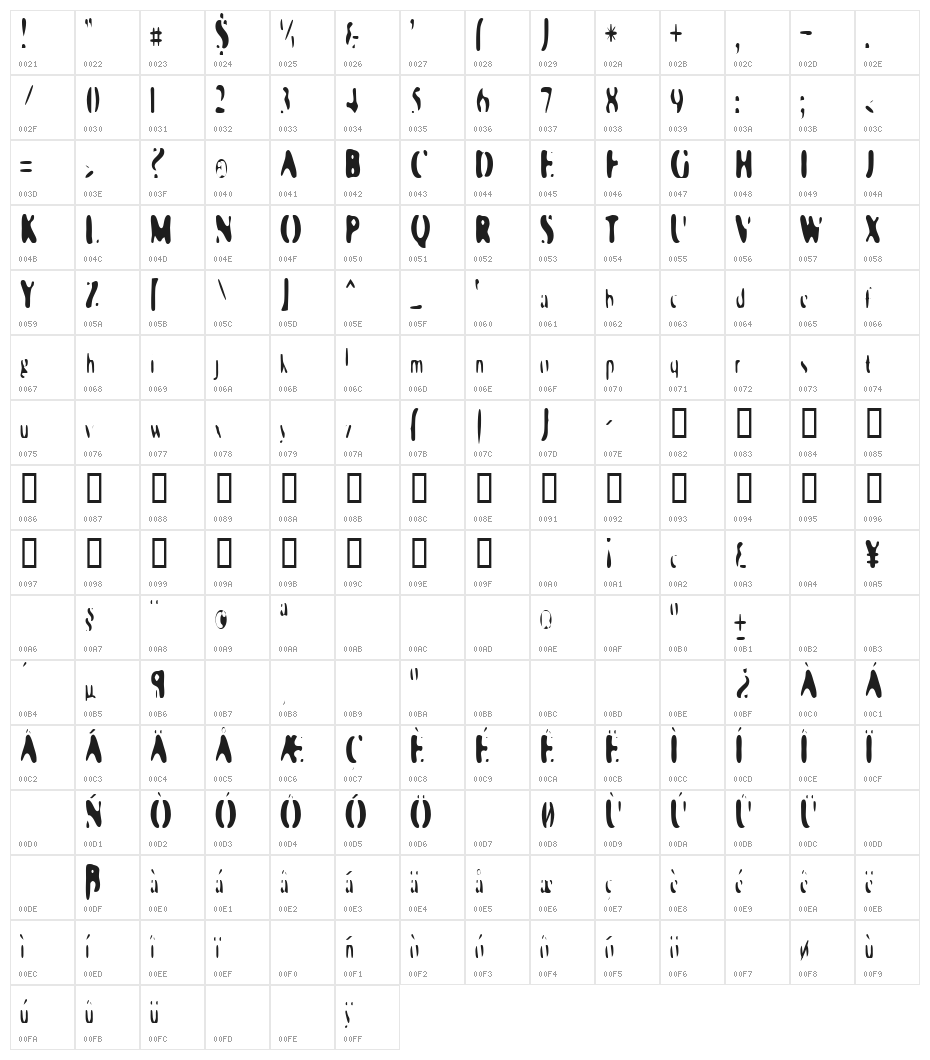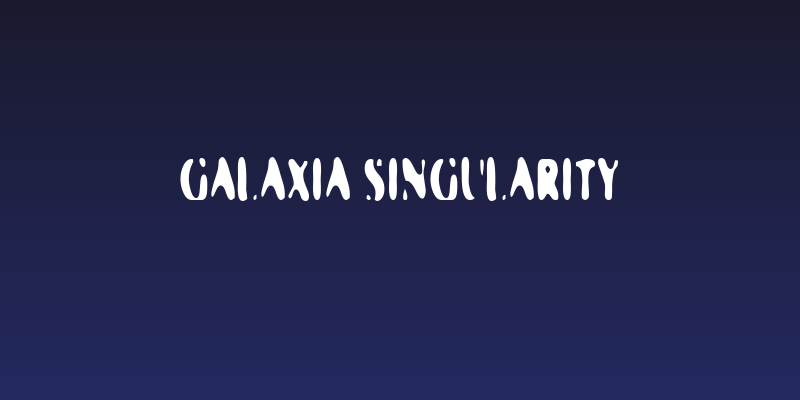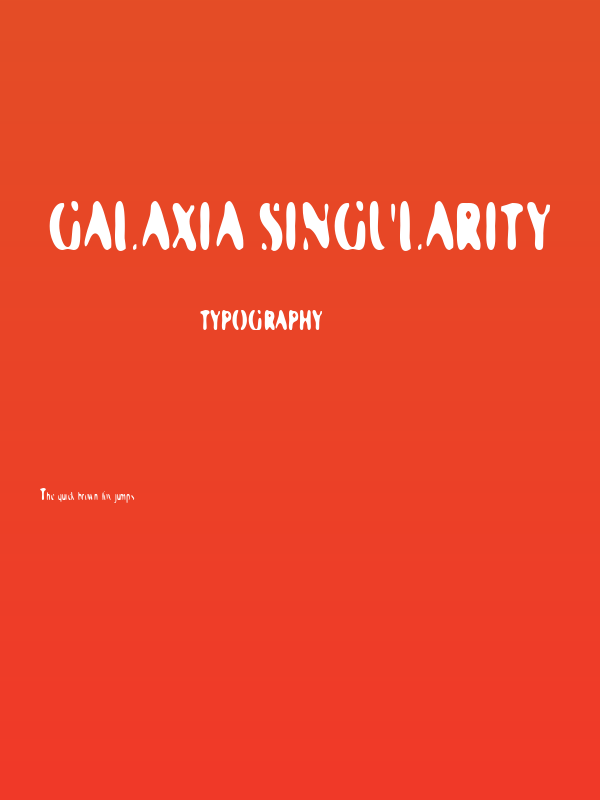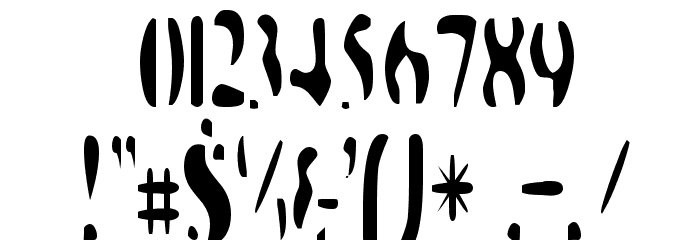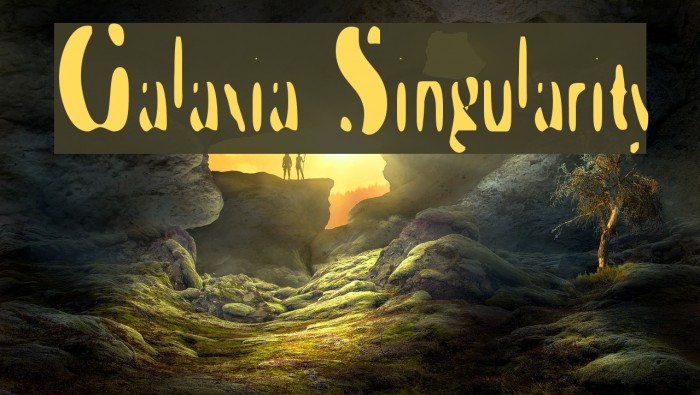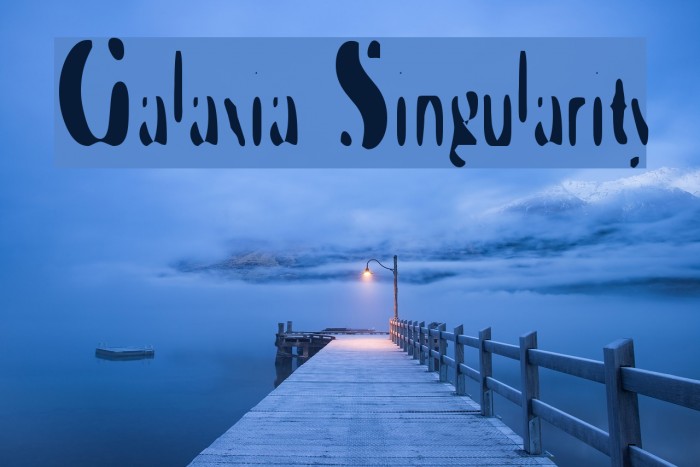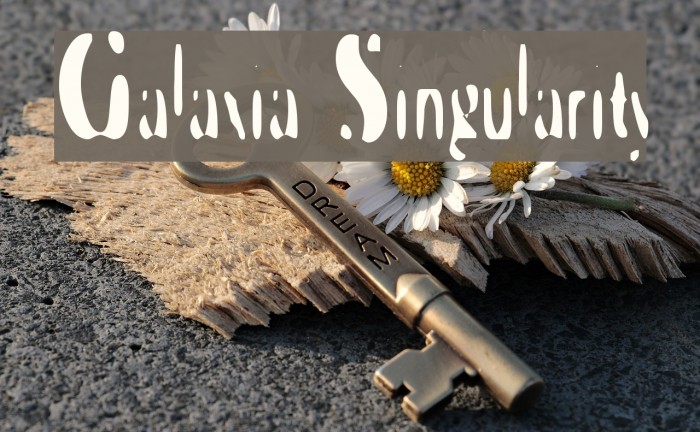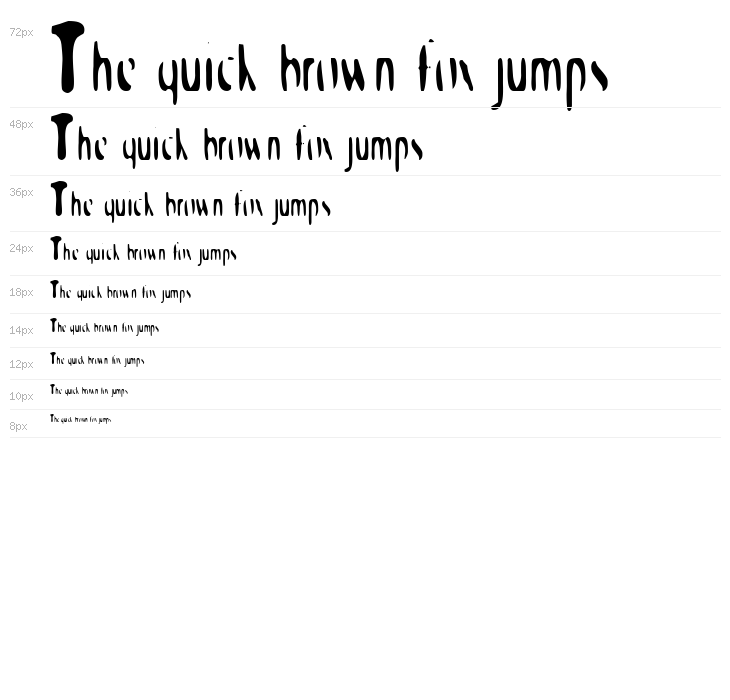
Galaxia Singularity Font
Galaxia Singularity Description
This font features a bold, abstract design with a unique, organic flow. The characters are thick and rounded, with a playful, almost liquid appearance. The uppercase and lowercase letters maintain a consistent style, with exaggerated curves and varying stroke widths that create a dynamic visual rhythm. The numbers and special characters follow the same aesthetic, adding to the font's cohesive look. This font is ideal for projects that require a standout, artistic touch, offering a modern and creative vibe.
| Overall Style | Modern, Artistic |
| Use Case | Logos, Posters, Creative Branding |
| Proposed Projects | Ideal for artistic projects, modern branding, creative posters, and unique logo designs. |